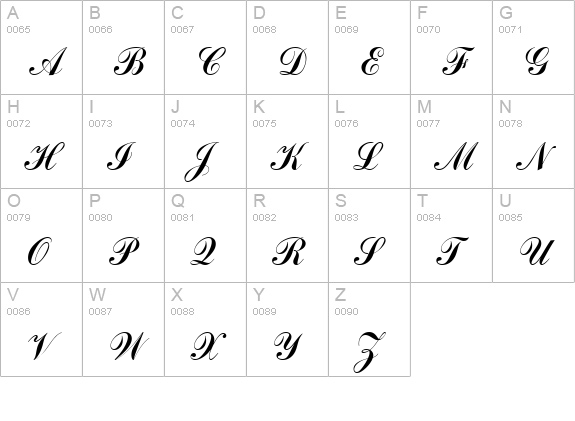
CommercialScrDEE font is a stylish and modern typeface that exudes professionalism and elegance. With its clean lines and sleek design, this font is perfect for a wide range of commercial projects, from advertising to branding to packaging. The versatility of CommercialScrDEE font makes it a must-have for any designer looking to make a bold statement. Best of all, CommercialScrDEE font is free to download at FontsMarket.com. This means you can access this high-quality font without breaking the bank, making it a valuable addition to your font library. Whether you're working on a corporate brochure, a product label, or a website design, CommercialScrDEE font will add a touch of sophistication and class to your project. Download it today and take your designs to the next level!